This guide to handwritten fonts shows how to pick casual notes, neat monoline scripts, and chalk/marker styles for planners, labels and crafts — plus quick rules so your text stays readable in print and easy to cut.
Editor’s top picks — Handwritten Fonts
Casual Notes
Loose, friendly strokes — perfect for planner headers, sticky notes and quick captions.
Neat Handwriting
Tidy school-style handwriting with clear forms for worksheets and printable pages.
Monoline Script
Even stroke width that prints small and cuts cleanly; great for labels and tags.
Chalk & Marker
Textured marker/chalk looks for signs, boards and bold planner callouts.
Dotted / Tracing
Dashed baseline sets for tracing practice and pen-control worksheets.
Kids & Classroom
Round, friendly letters that remain legible on bulletin boards and labels.
Recipes & Labels
Clean recipes, pantry labels and jars — simple forms, clear numerals & fractions.
Cricut/Silhouette
Smooth curves and fewer inner holes so designs weed faster and look crisp.
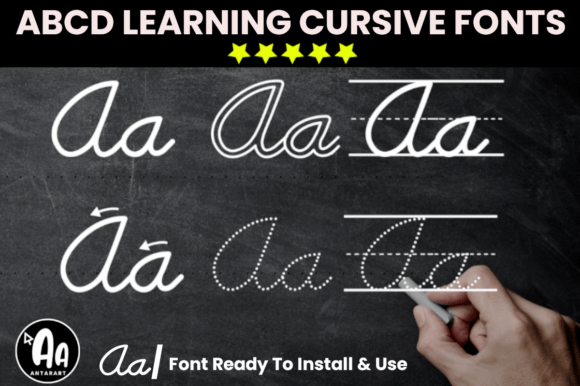
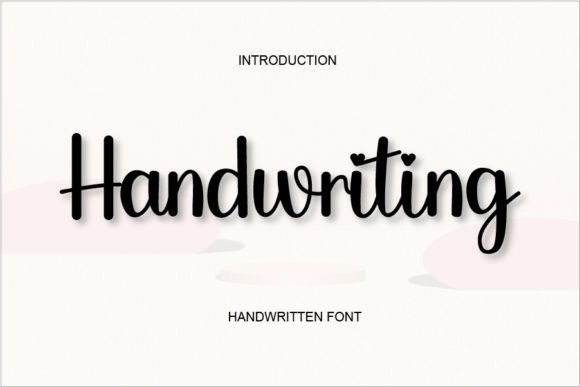
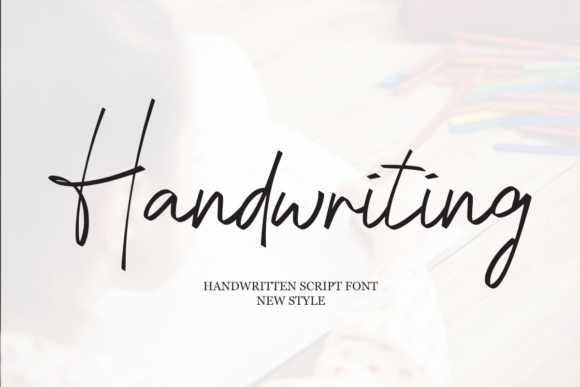
How to choose a handwritten font
- Keep strokes sturdy. For small print, aim for at least ~0.3–0.4 mm stroke; for cutting, ~0.6–0.8 mm weeding is safer.
- Prefer simple joins. Neat monoline scripts connect reliably and don’t break on small vinyl cuts.
- Mind spacing. Slightly increase tracking for marker/chalk styles and tight condensed scripts.
- Numbers & symbols. Check that numerals, fractions, degree sign and recipe symbols are clear.
- Language support. Ensure accents and special characters you need are included.
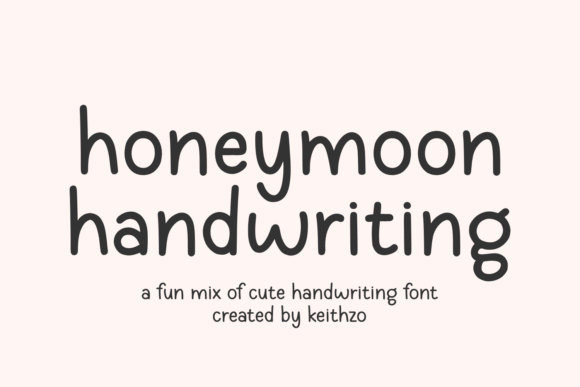
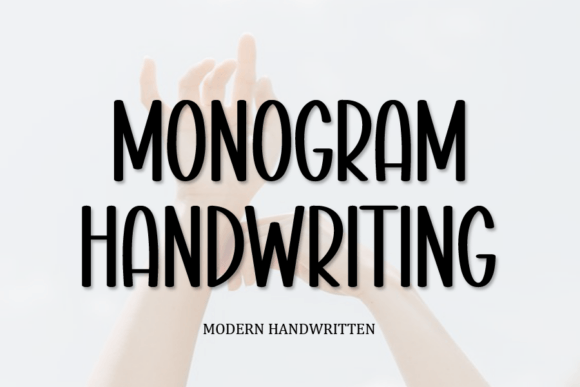
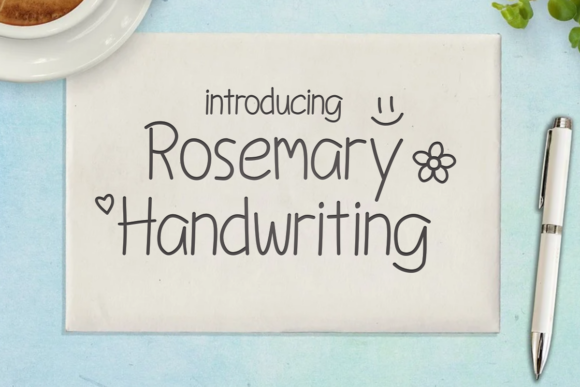
Font pairing recipes
- Neat Handwriting + Clean Sans — handwriting for headers, sans for small body text.
- Monoline Script + Slab Serif — warm labels with sturdy price tags and captions.
- Marker Script + Condensed Sans — punchy posters and planner callouts.
Projects you can ship today
- Planner pages and stickers (habits, mood, meal plans).
- Pantry & spice labels, bottle tags, gift tags and return address stamps.
- Worksheet headers, tracing sheets and classroom boards.
- Recipe cards, greeting cards and printable wall quotes.
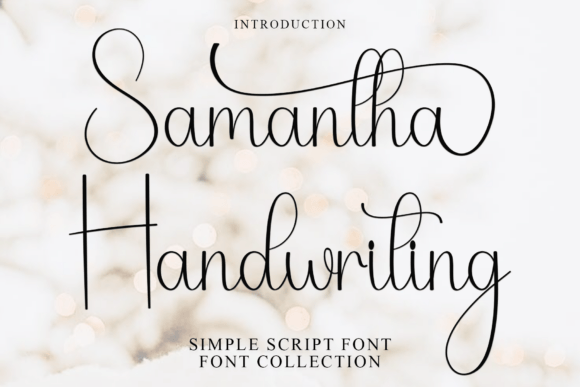
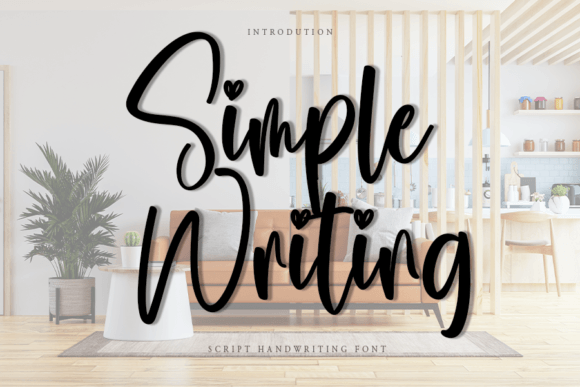
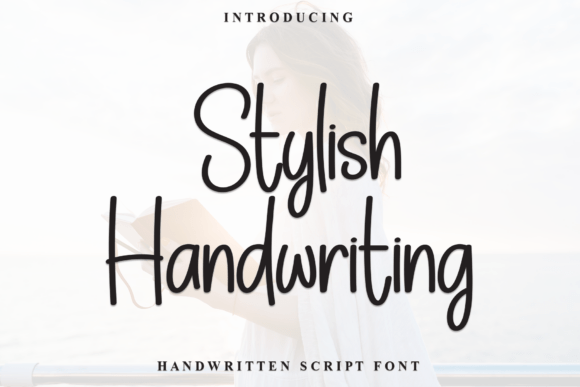
Quick tips: Canva & cutting